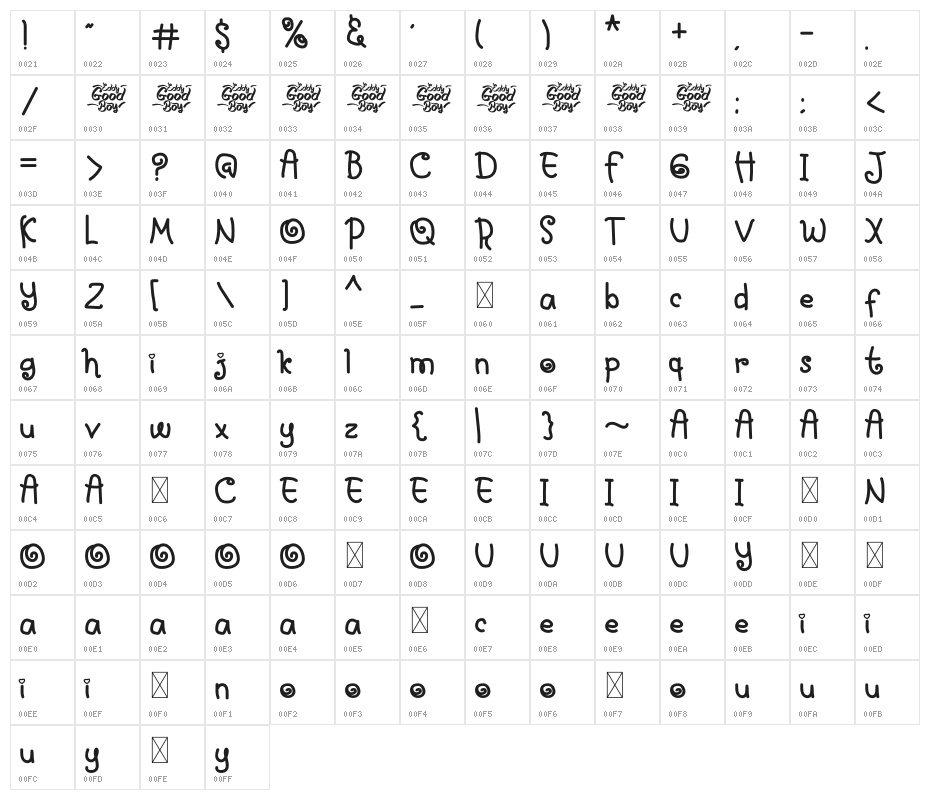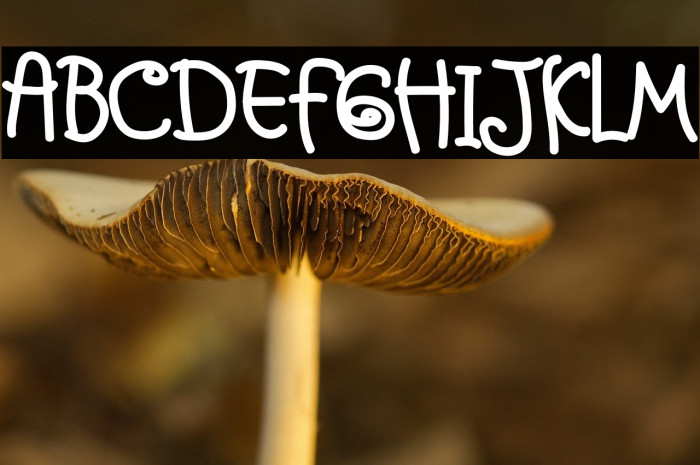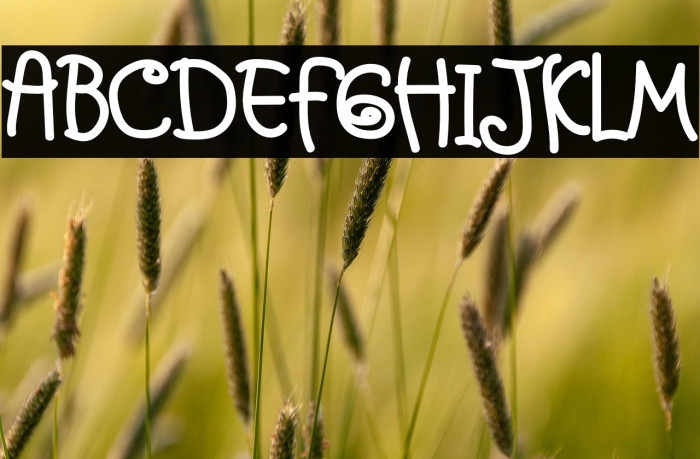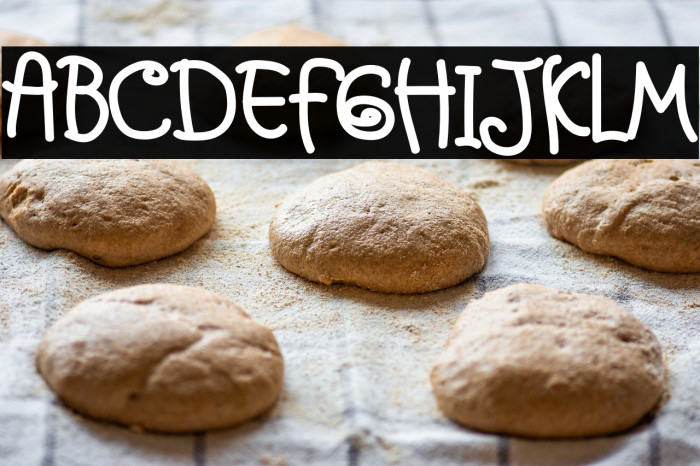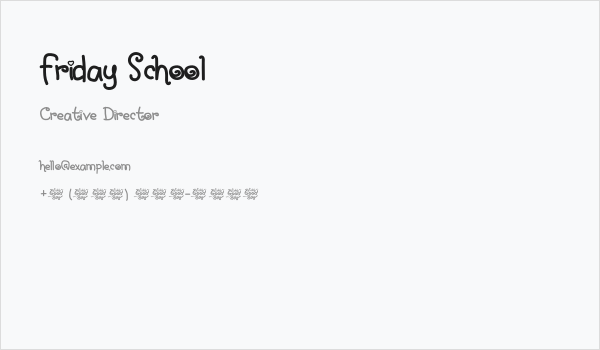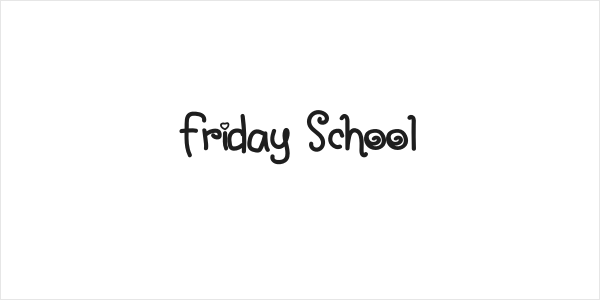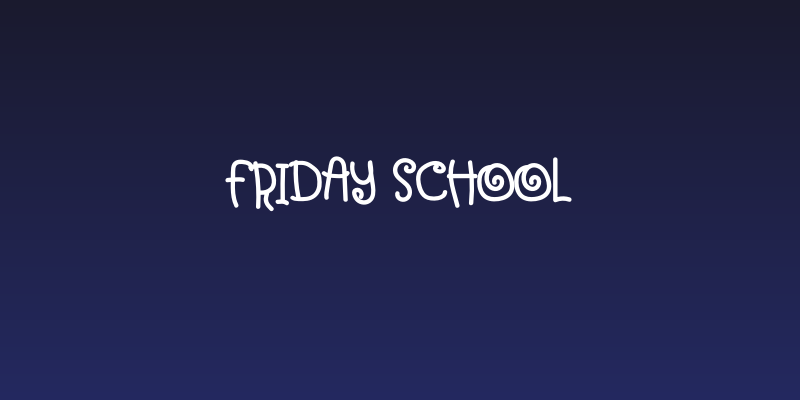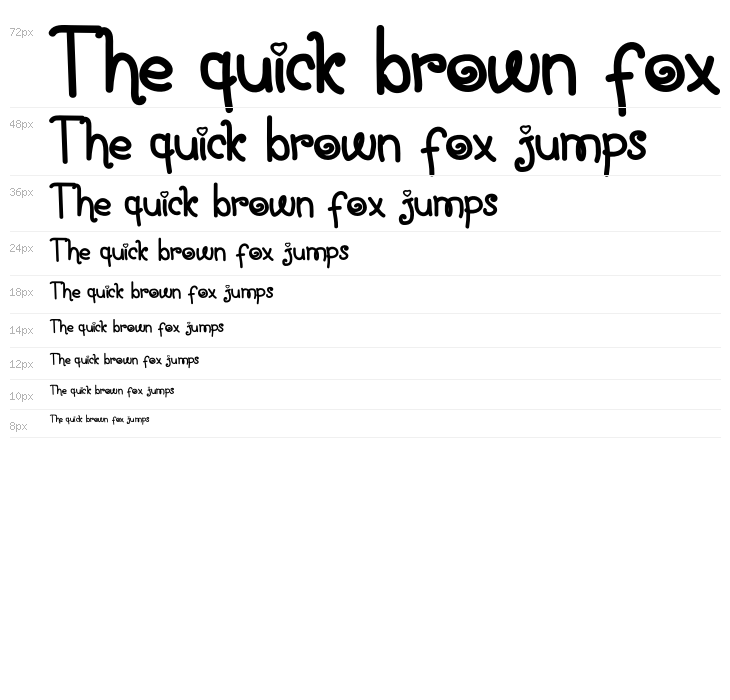
Friday School Font
Friday School Description
This playful and whimsical font features a hand-drawn style with a casual and friendly appearance. The letters are characterized by their uneven strokes and quirky embellishments, such as hearts and swirls, giving it a unique and artistic flair. The uppercase letters are bold and prominent, while the lowercase letters maintain a consistent style with slight variations in size and shape. The numbers and special characters follow the same playful theme, making this font ideal for creative and informal projects. Its distinctive style is perfect for capturing attention and adding a touch of fun to any design.
| Proposed Projects | Ideal for children's books, greeting cards, playful branding, and creative posters. |